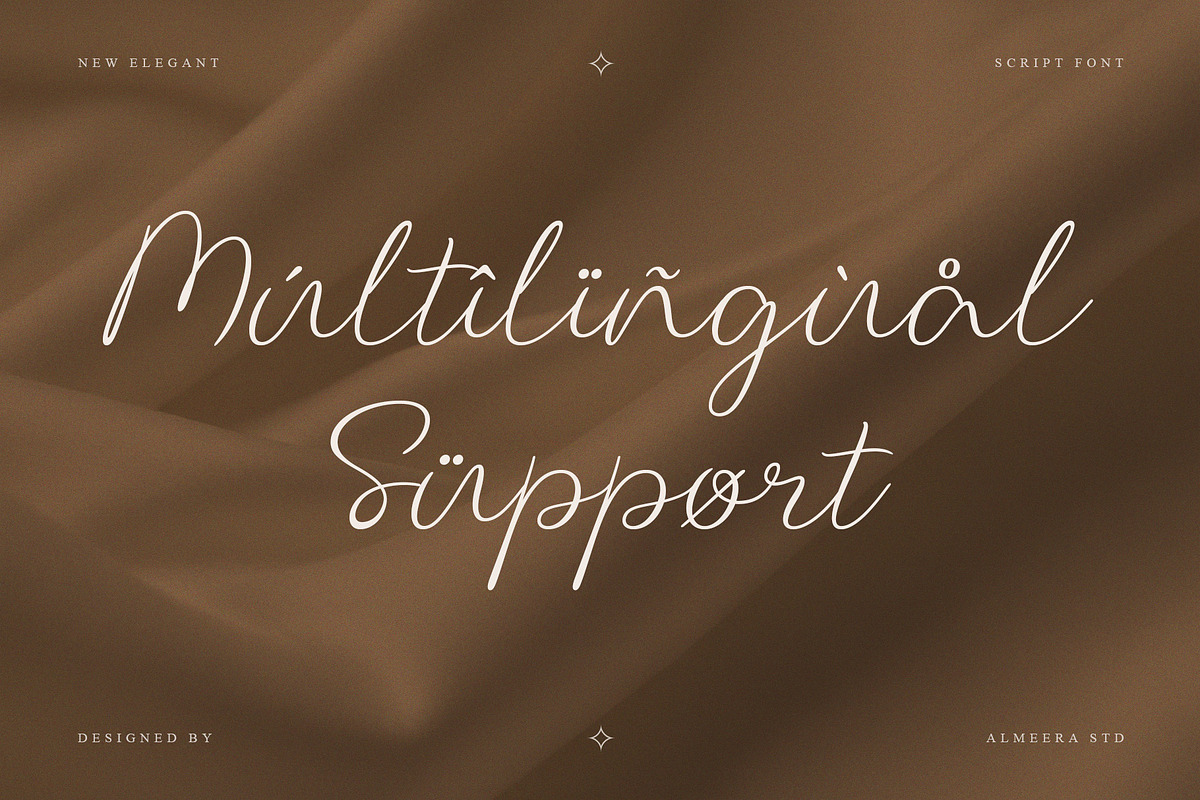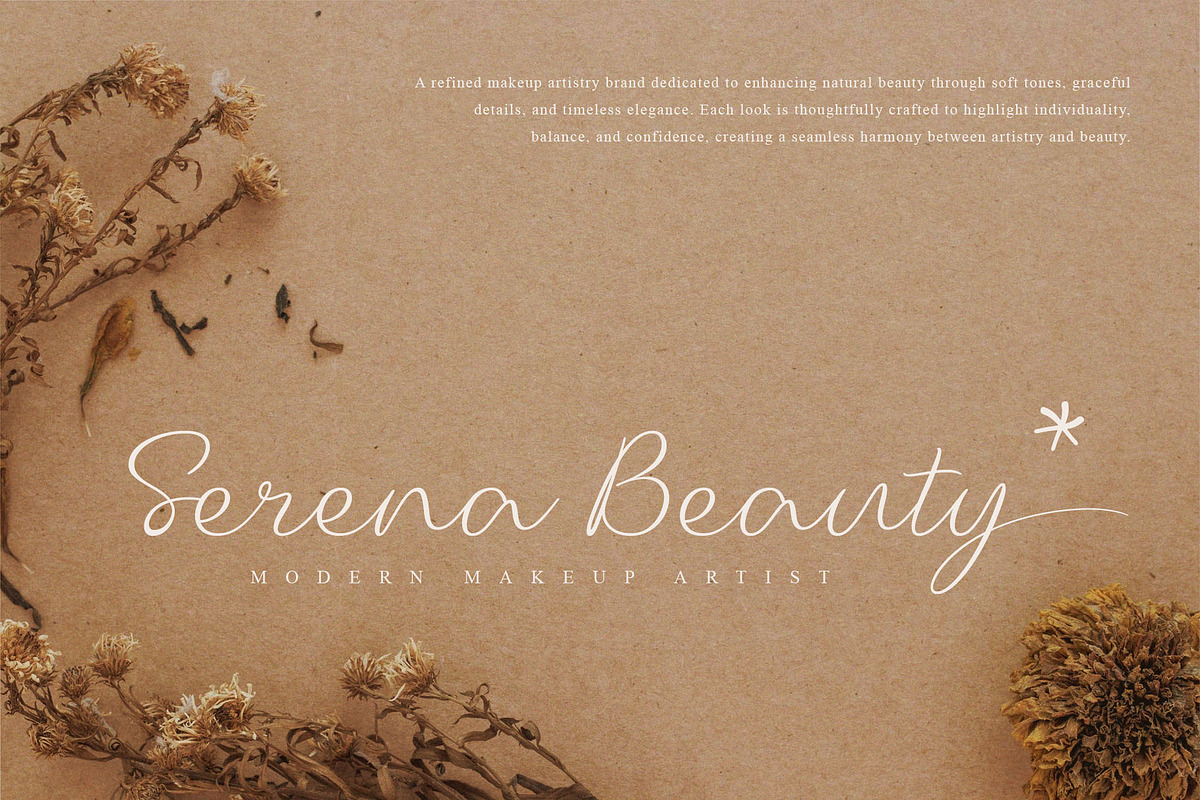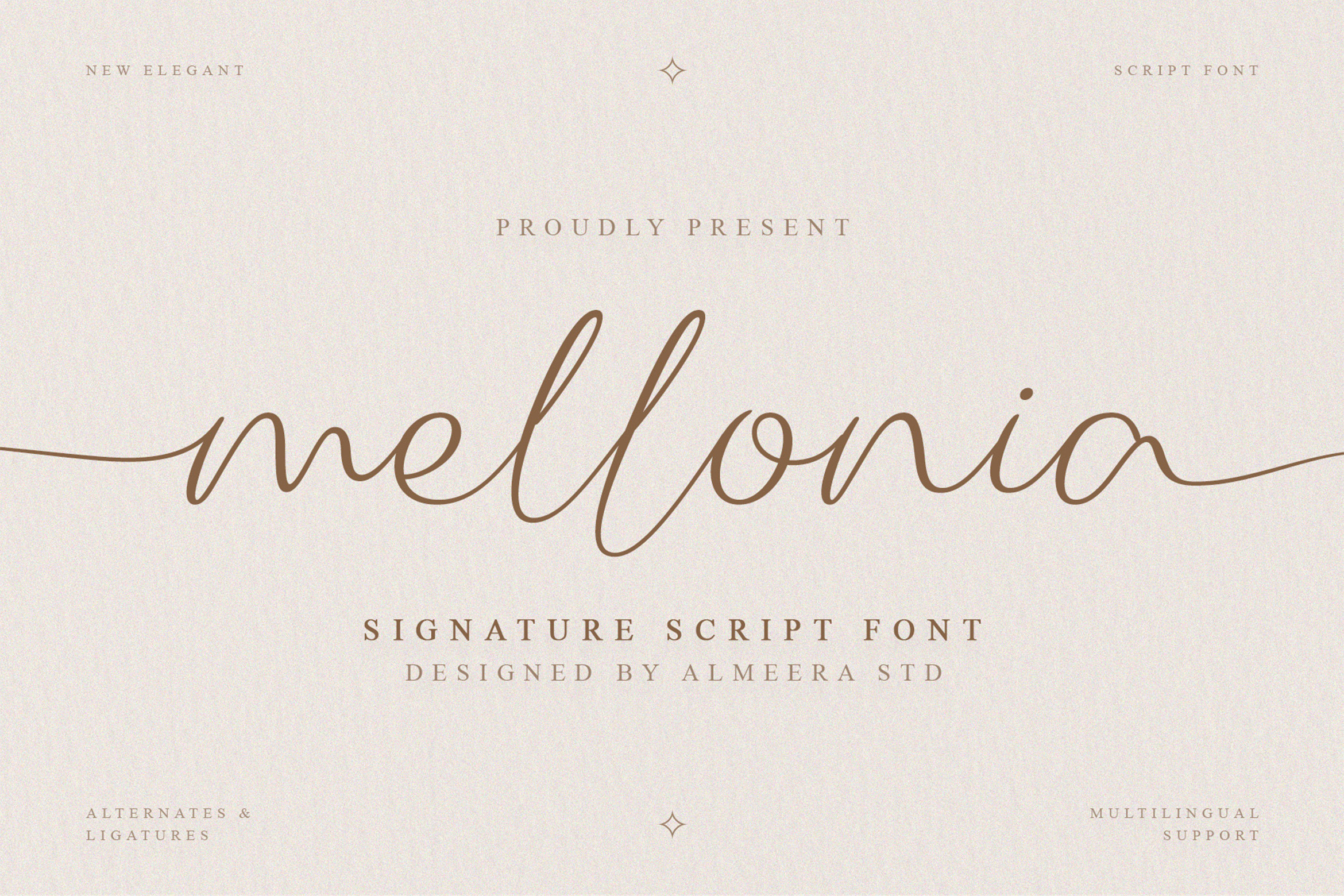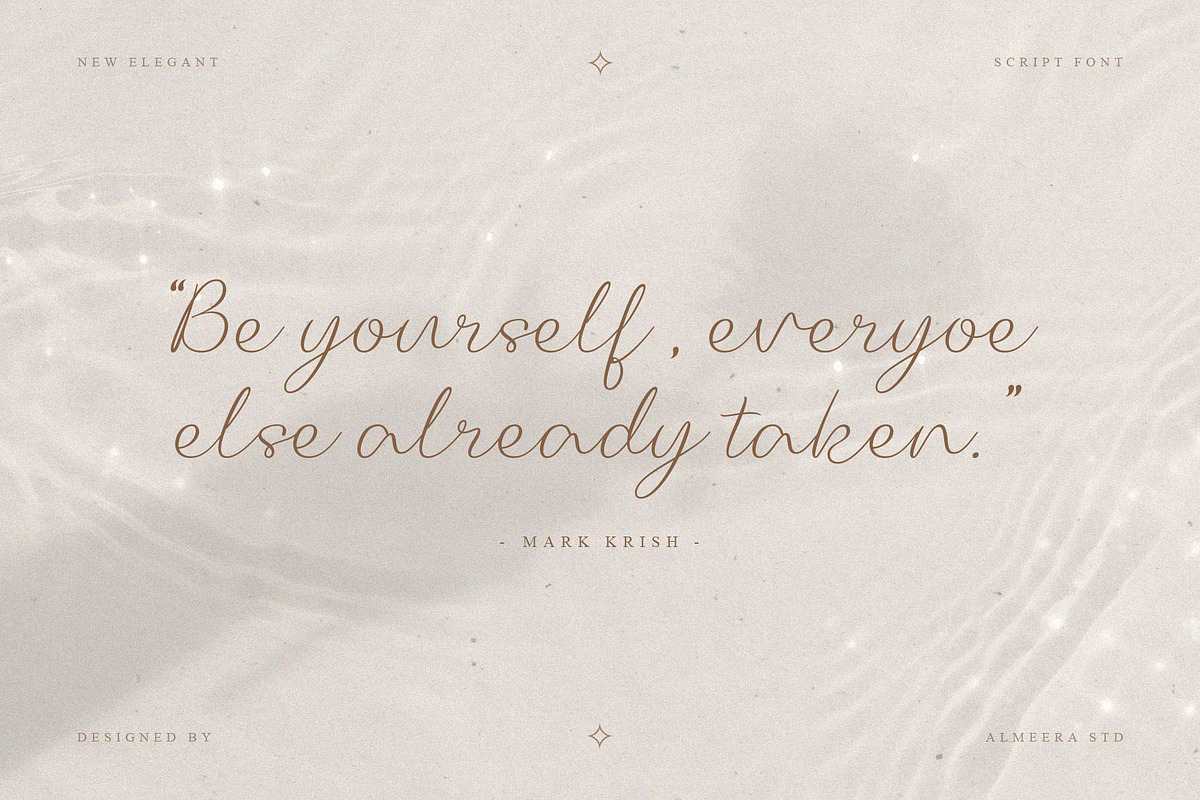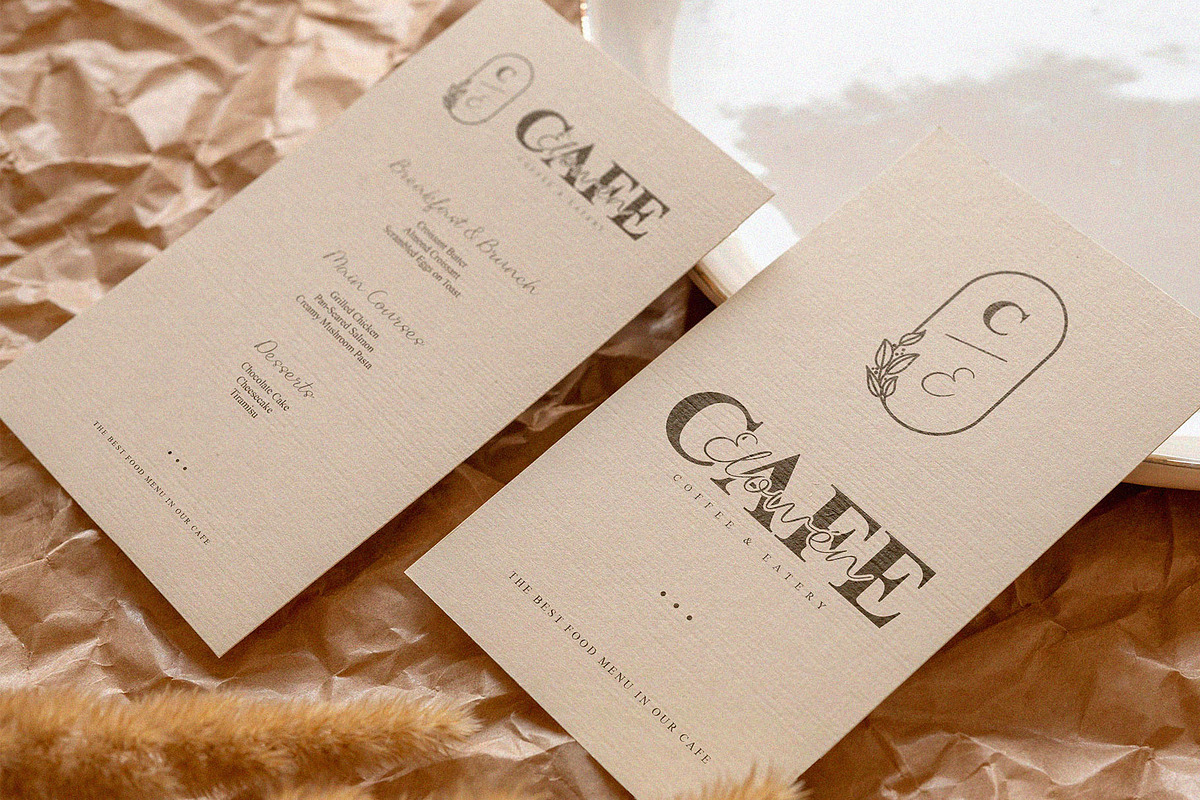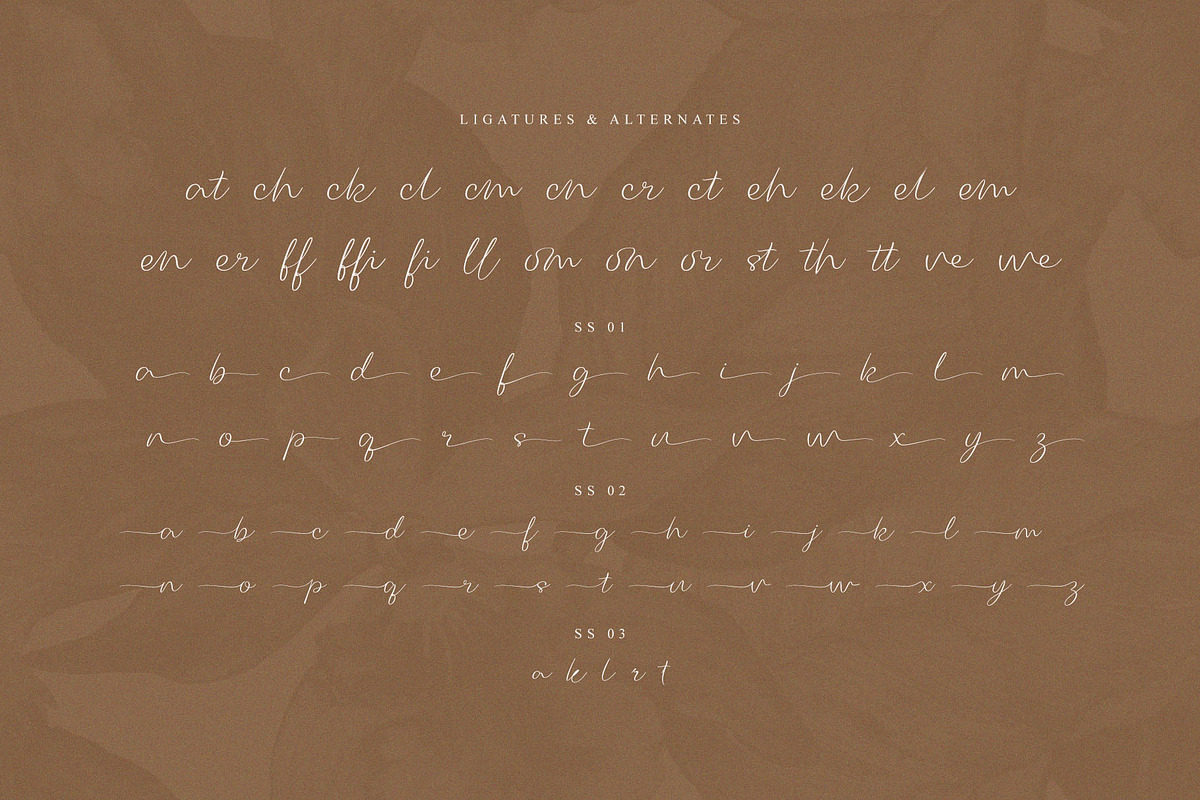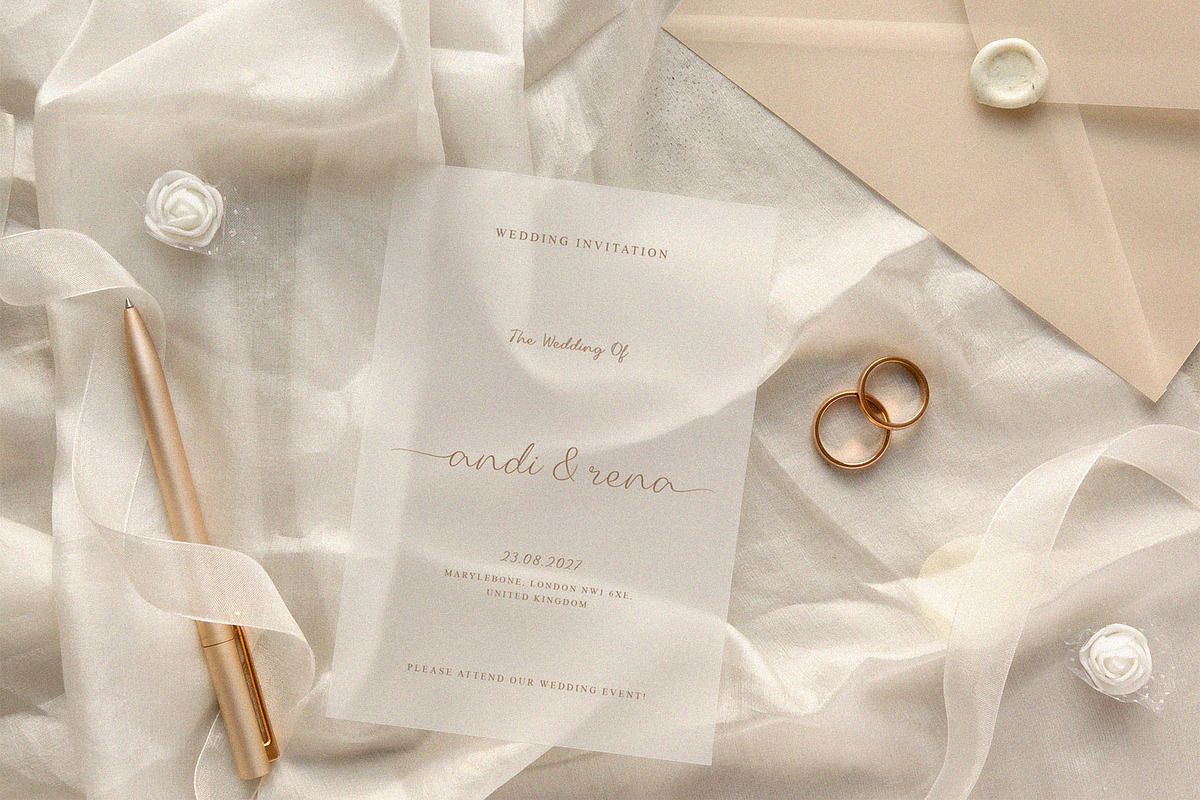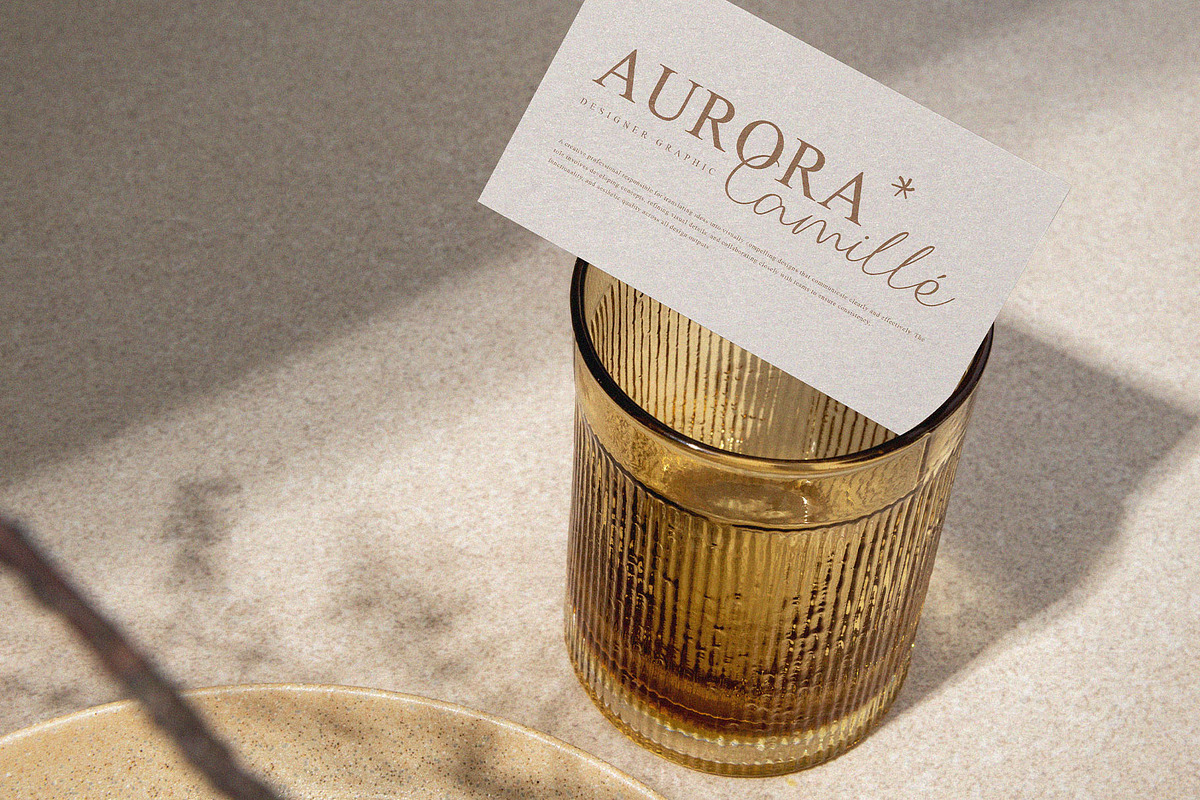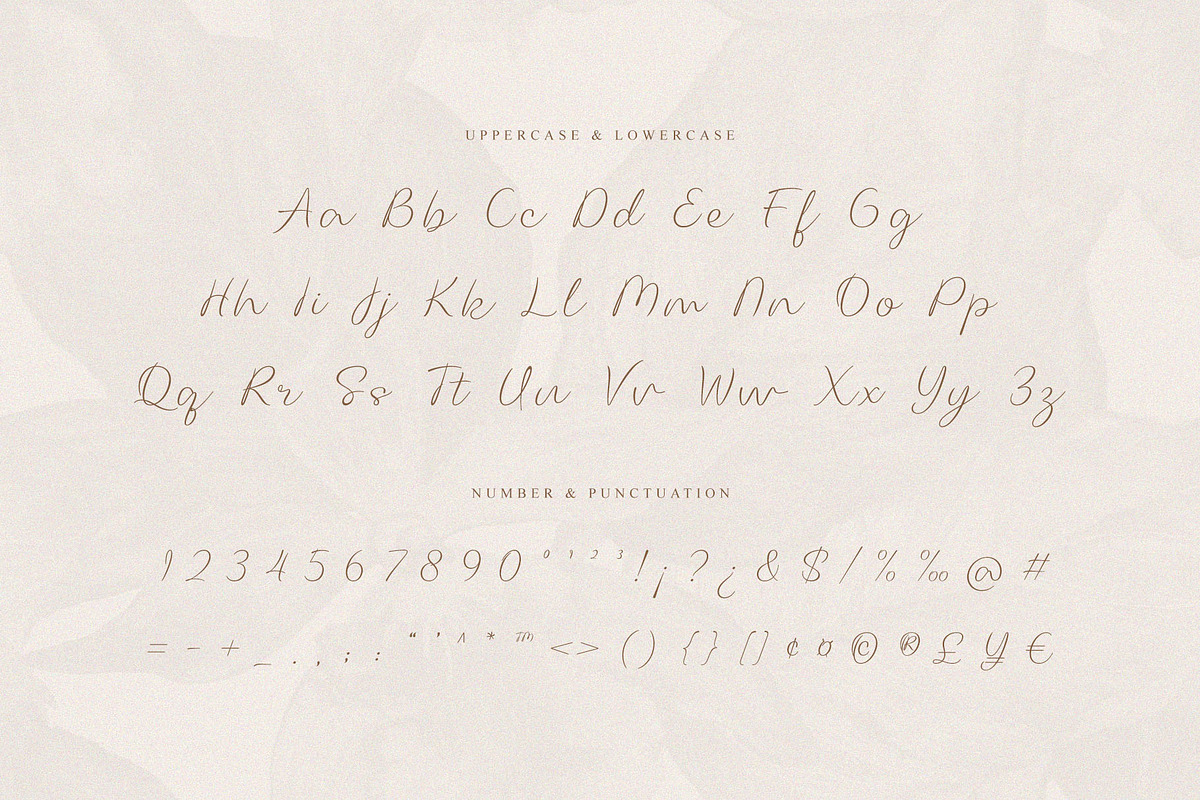
Mellonia – Script Font
Mellonia is an elegant signature script font designed with smooth strokes and natural handwritten flow. Its graceful curves and balanced rhythm create a refined and personal feel, making it perfect for designs that need a touch of sophistication and warmth.
This font is well suited for branding projects, logo design, valentine, invitations, quotes, packaging, social media graphics, website headers, and stylish visual compositions. Mellonia delivers a clean and expressive script style that feels modern while staying timeless.
Mellonia is ideal for designers who want a signature-style script font that looks elegant, polished, and effortlessly stylish.
- Numbers, fractions
- Punctuation and symbols